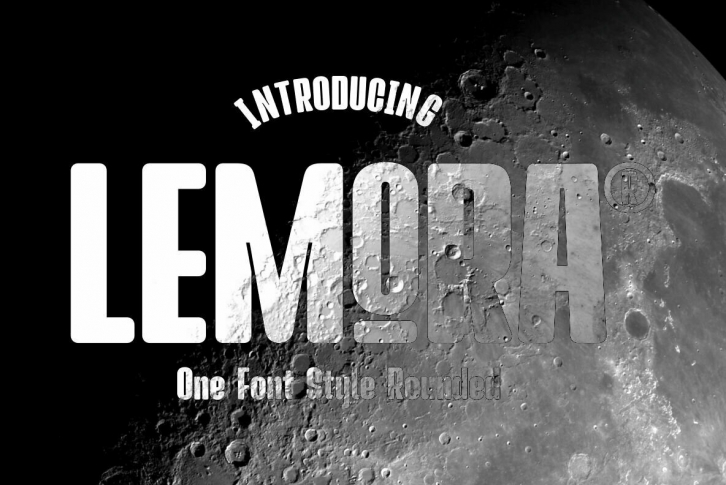
The Lemora Bold round font was created by Saskara Type. Inspired by design, from cutting-edge technology, the story of ancient lemurians at one with nature. This font is ideal for headlines, medium and large print formats, displays, and posters.